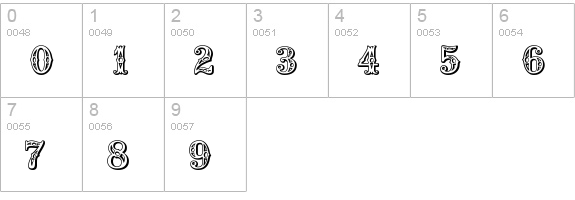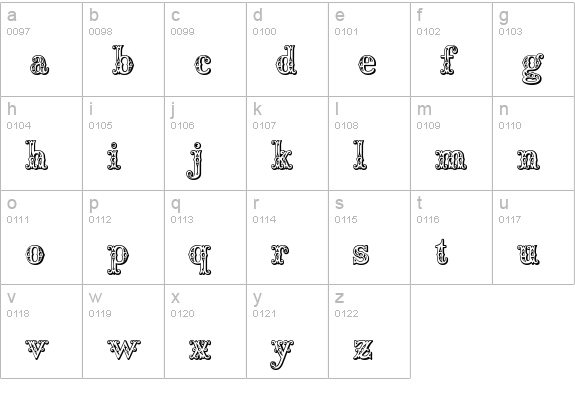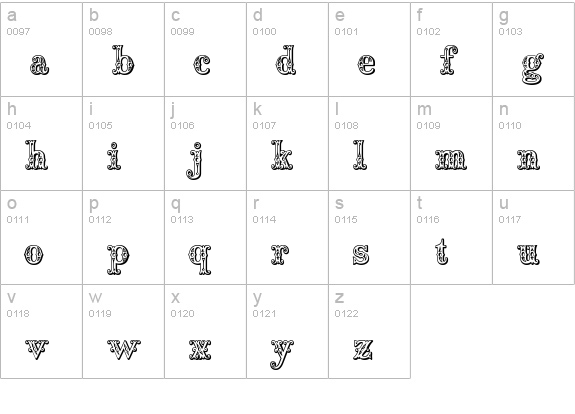
Saddlery Font Details
Saddlery Font is a breathtaking display typeface that captures the essence of elegance and sophistication. With its meticulously crafted letterforms and intricate details, this font is a perfect choice for luxury branding, high-end packaging, and editorial designs. Each character of Saddlery Font exudes a timeless charm, reminiscent of classic calligraphy. The graceful curves, slender strokes, and delicate serifs create a harmonious balance that is both captivating and refined. This font is a true testament to the artistry of typography. Saddlery Font is not only visually striking but also highly versatile. Its versatile nature allows it to effortlessly adapt to various design projects, from wedding invitations to fashion magazines. The font gracefully adds a touch of class and exclusivity to any design it is applied to. What makes Saddlery Font even more enticing is that it is freely available to download at FontsMarket.com. This means that designers and creatives alike can access this exquisite font without any cost, making it an ideal choice for those who seek both quality and affordability. Whether you are a professional designer, a creative enthusiast, or someone looking to elevate their design projects, Saddlery Font is a must-have in your font collection. With its timeless beauty and accessibility, this font is sure to make a lasting impression on any audience. So why wait? Download Saddlery Font now and unlock a world of endless design possibilities.